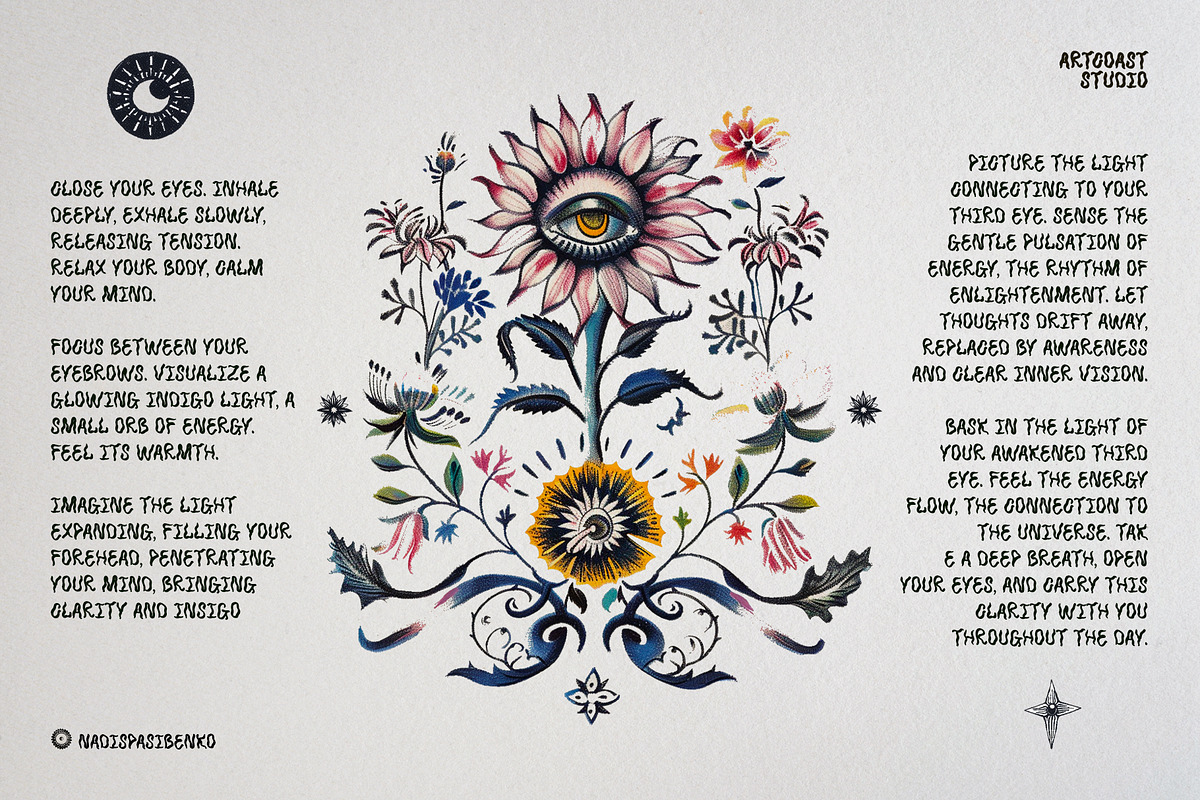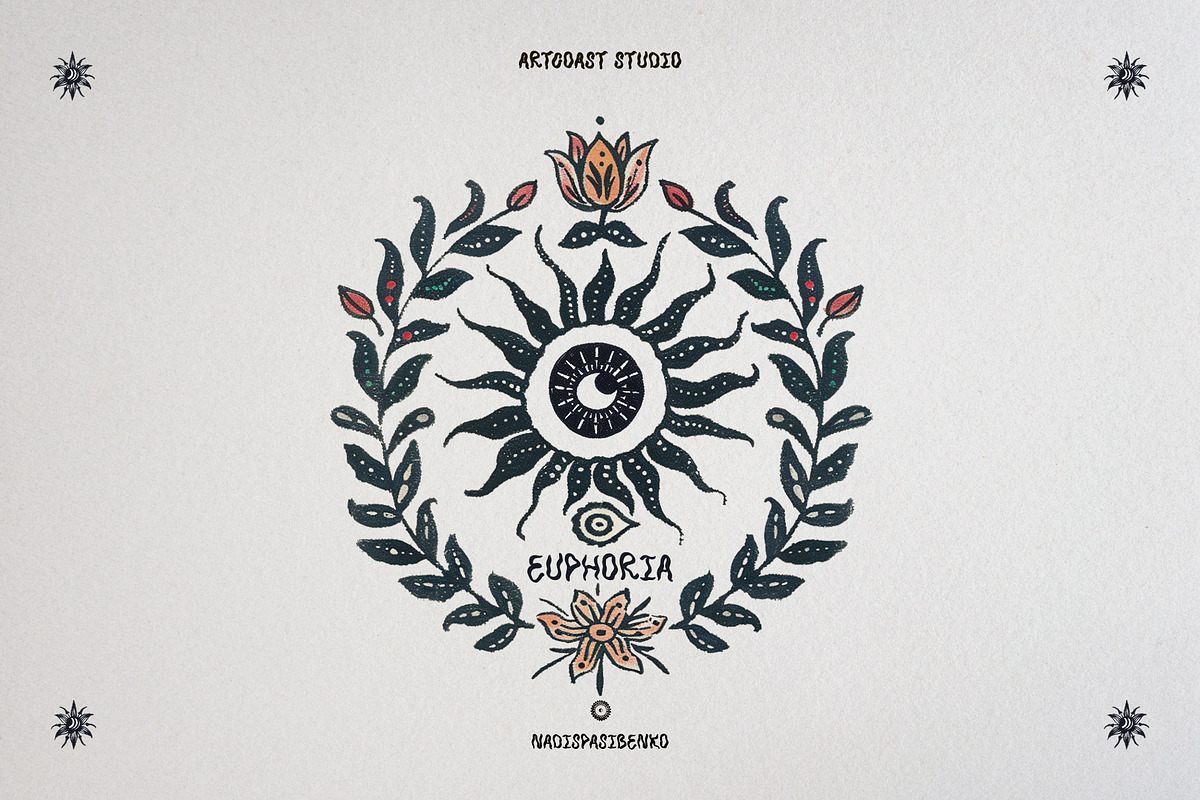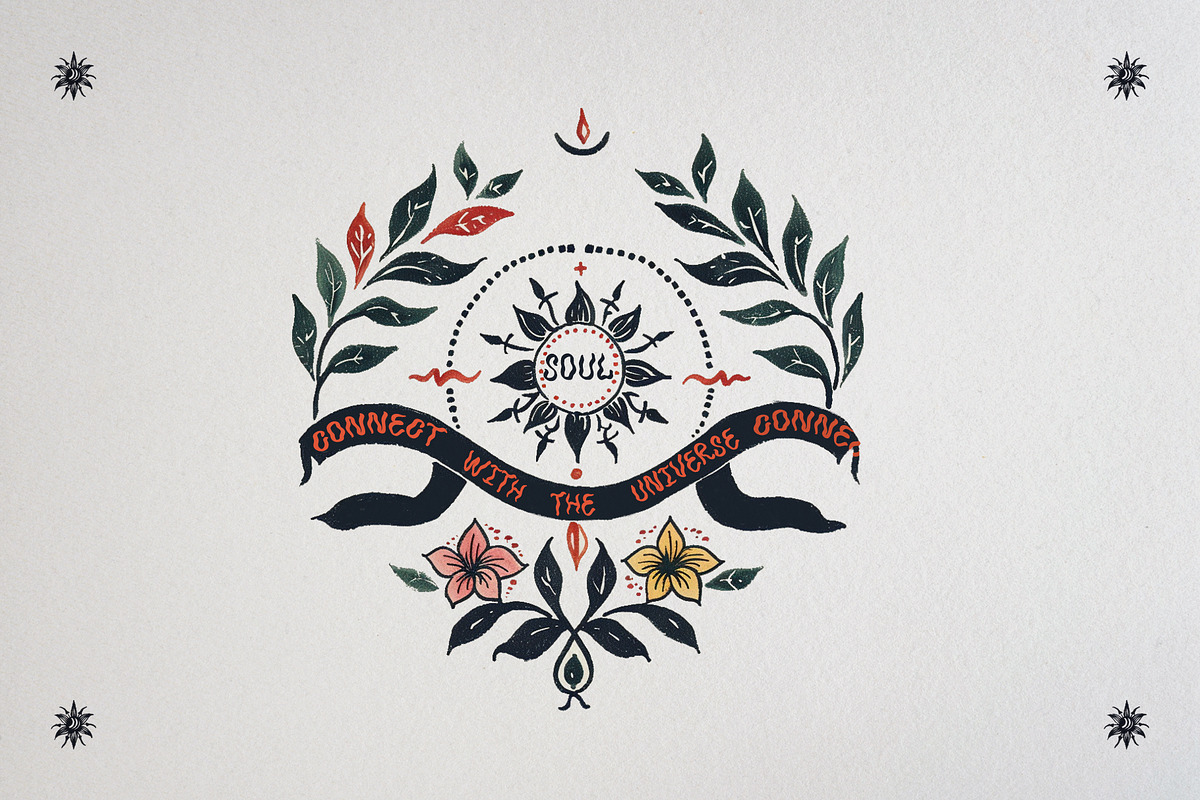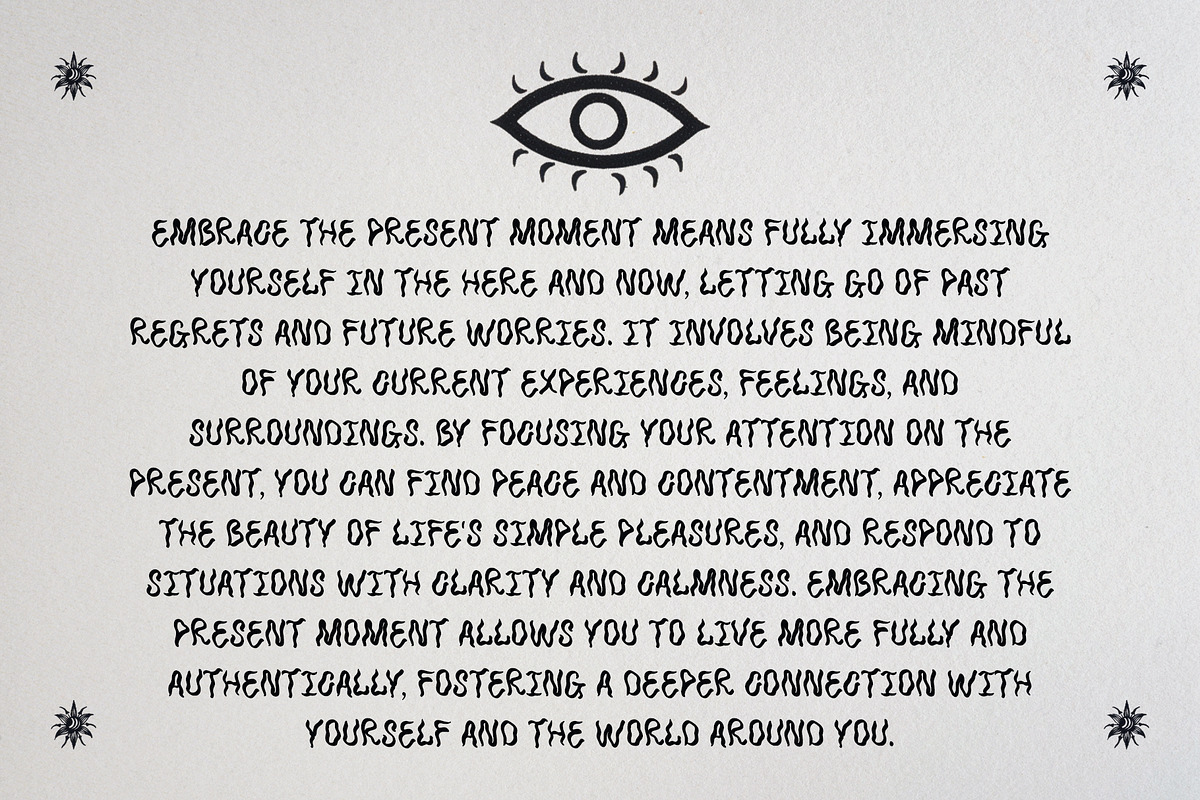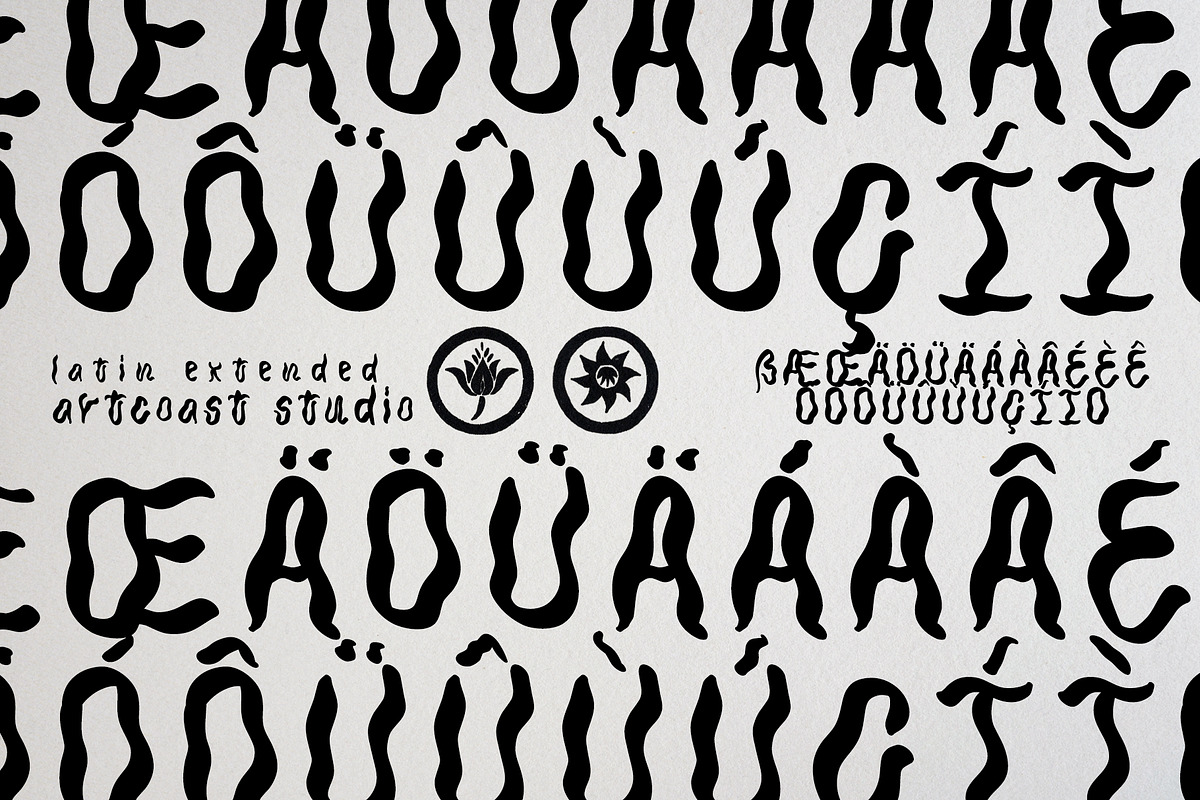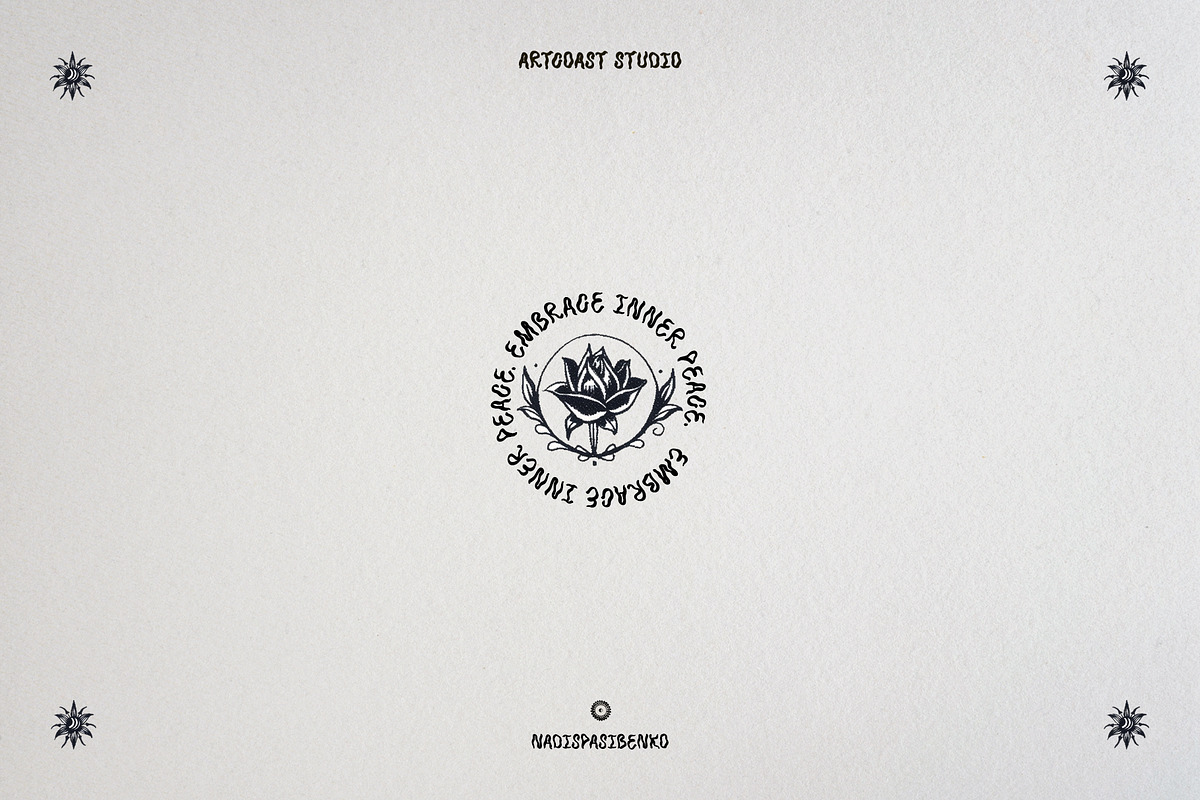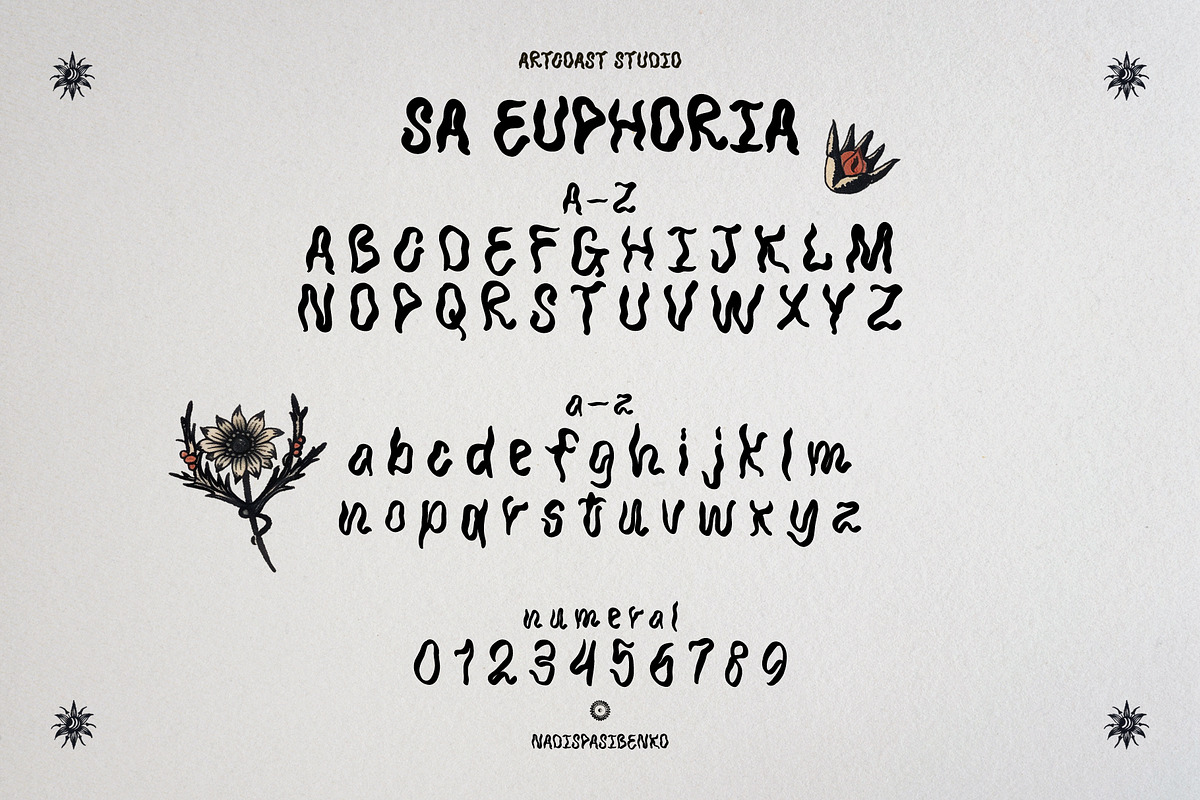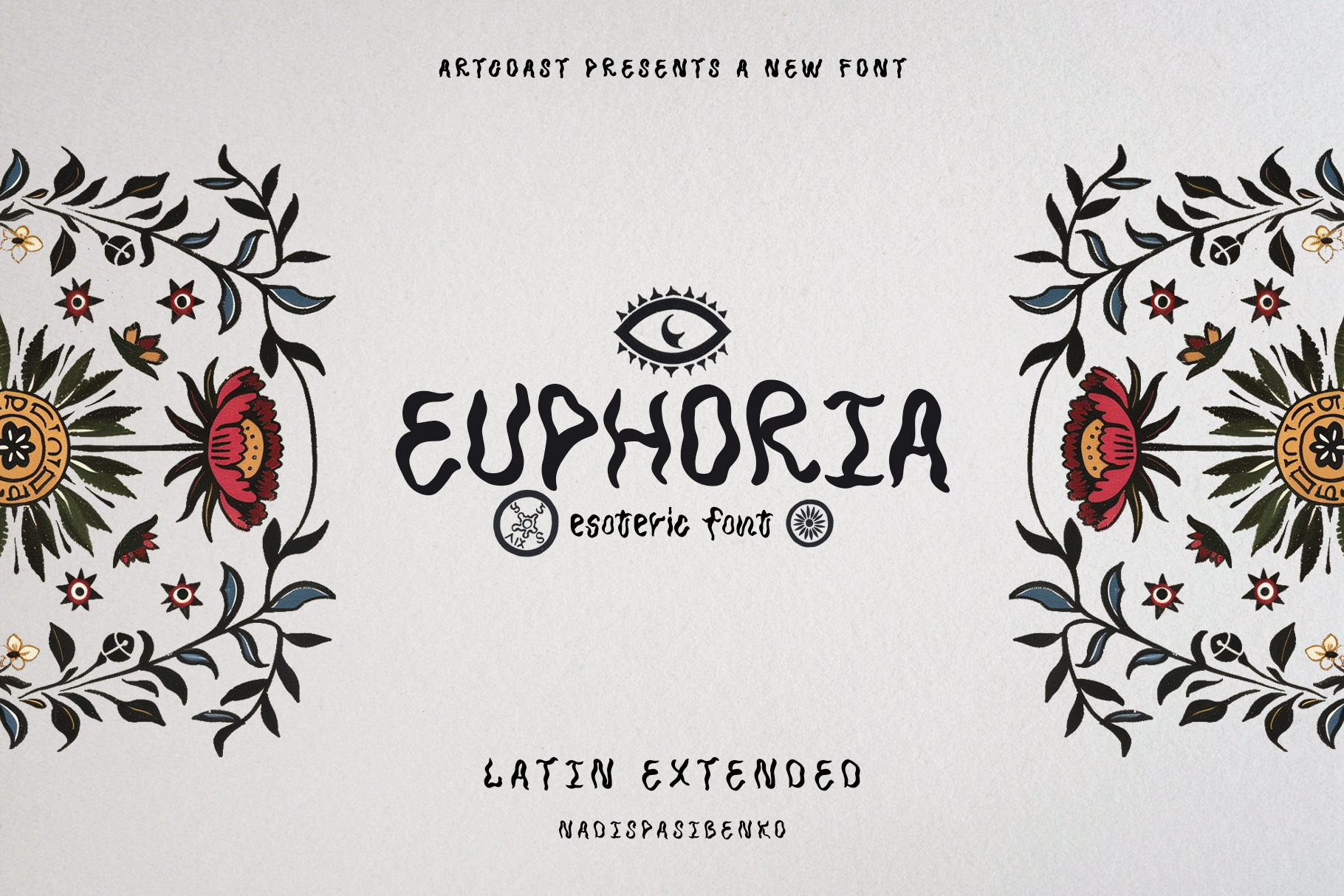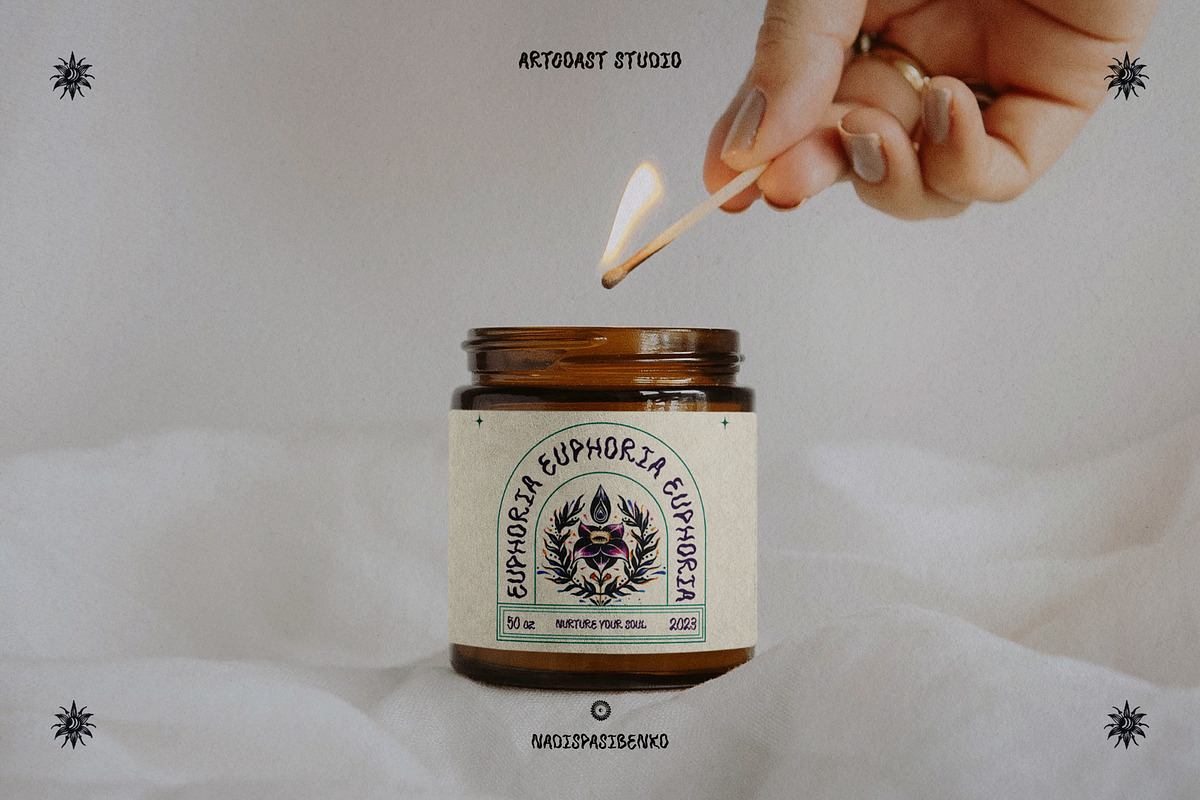
Euphoria Esoteric Font
Euphoria Esoteric Font is a mesmerizing, handwritten typeface crafted for the mystical and the magical. Ideal for applications in esotericism, metaphorical cards, and astrology, this font infuses your designs with a sense of celestial elegance and otherworldly charm.
Featuring graceful, flowing curves and intricate detailing, Euphoria Esoteric Font echoes the beauty of ancient script and cosmic patterns. Its handwritten style adds a personal, ethereal touch, making each character feel uniquely crafted. The font includes an extended Latin character set, ensuring versatility and readability across various languages and contexts.
Perfect for enhancing metaphysical content, Euphoria Esoteric Font brings a touch of magic and mystery to any project, inviting readers to explore deeper meanings and connect with the spiritual dimensions of your work.